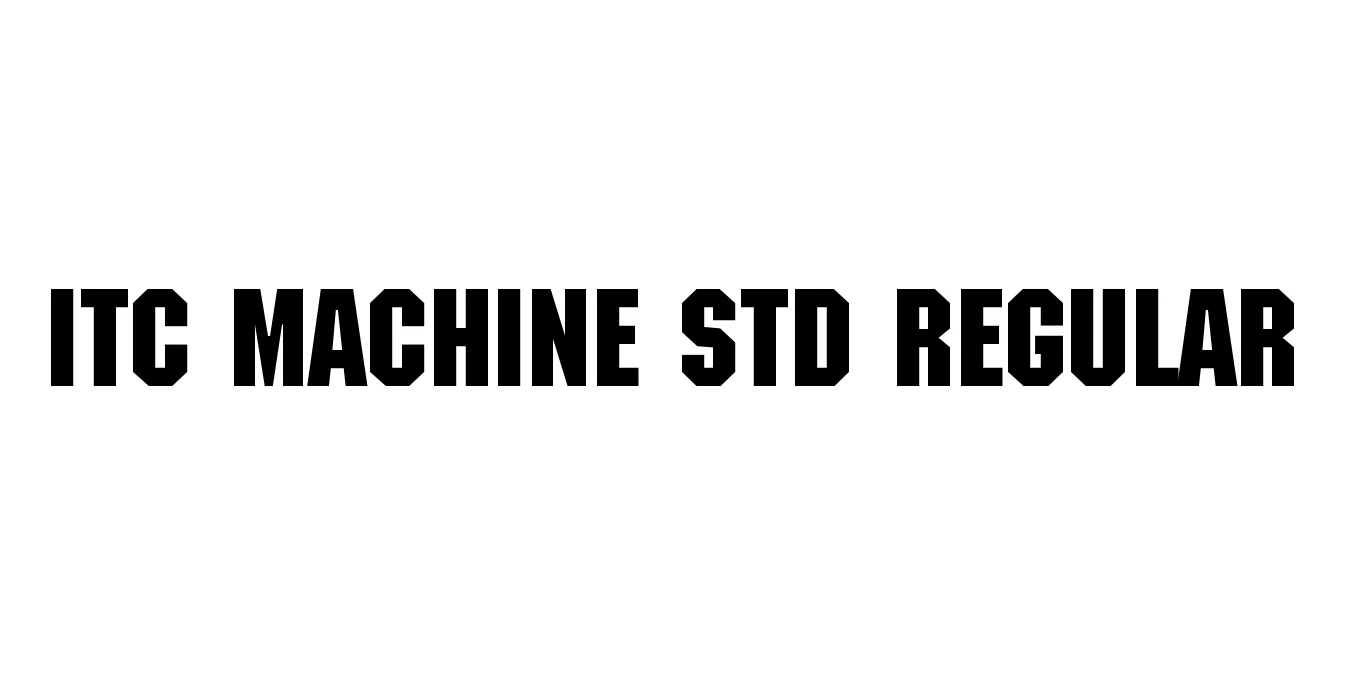
ITC Machine Std Regular
Designed by Bonder & Lames
| Category | Display / Sans Serif |
| Designer | Bonder & Lames |
ITC Machine is a heavy, blocky, geometric display typeface that epitomizes the industrial and athletic aesthetic of the late 20th century. Originally designed in 1970 by the design duo Bonder & Lames, it was created for the International Typeface Corporation (ITC) as a bold solution for headlines and signage. Its rigid, monolithic structure and chamfered corners give it a powerful, mechanical feel that is often associated with strength, technology, and collegiate sports.
Throughout the decades, ITC Machine has become a staple in advertising and branding, particularly for projects requiring a sense of durability or high-impact presence. While it lacks lowercase characters, its uppercase set is remarkably effective for high-visibility applications like jerseys, automotive logos, and cinematic titles. The typeface remains a popular choice for designers looking to evoke a sense of authority and retro-industrial style in modern digital environments.
ITC Machine Std Regular Best Uses
Ideal for jersey numbering and team logos due to its bold, athletic appearance.
Perfect for high-impact headlines that require a strong, mechanical presence.
Suitable for industrial, automotive, or construction company identities.
Works well for large-scale print media where visibility and strength are key.